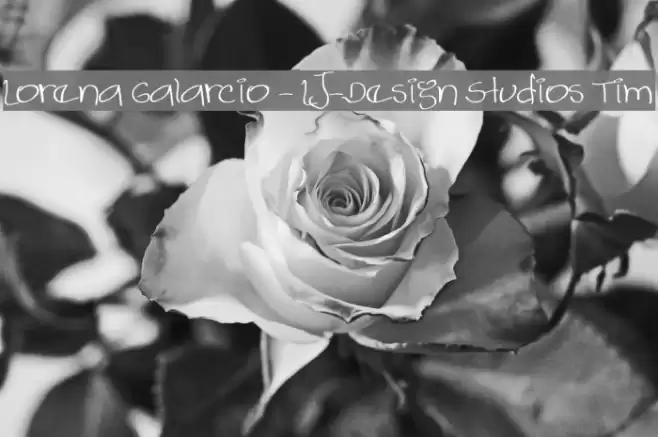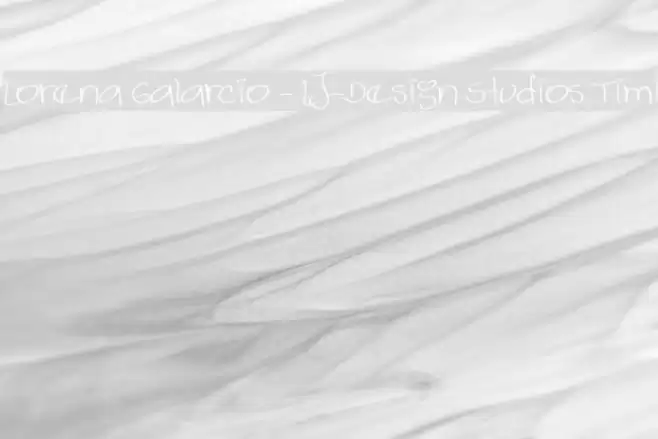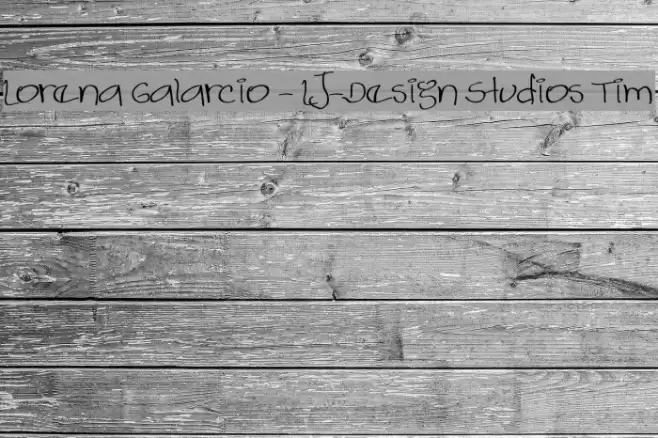
Lorena Galarcio - LJ-Design Studios Tim Font
Lorena Galarcio - LJ-Design Studios Tim Description
This font exhibits a playful and artistic handwritten style, characterized by its fluid and dynamic strokes. The letters are crafted with a sense of spontaneity, giving them a lively and informal appearance. The uppercase letters are bold and slightly irregular, while the lowercase letters maintain a consistent flow, enhancing the font's casual charm. The numbers and special characters follow the same whimsical design, making the font versatile for creative projects. The overall impression is one of creativity and expressiveness, suitable for designs that aim to convey a personal touch.
A playful and artistic handwritten font with fluid, dynamic strokes from Uncategorized fonts.
- Proposed Projects: Ideal for greeting cards, invitations, personal branding, and creative posters.
- Use Case: Logos, Headlines, Creative projects